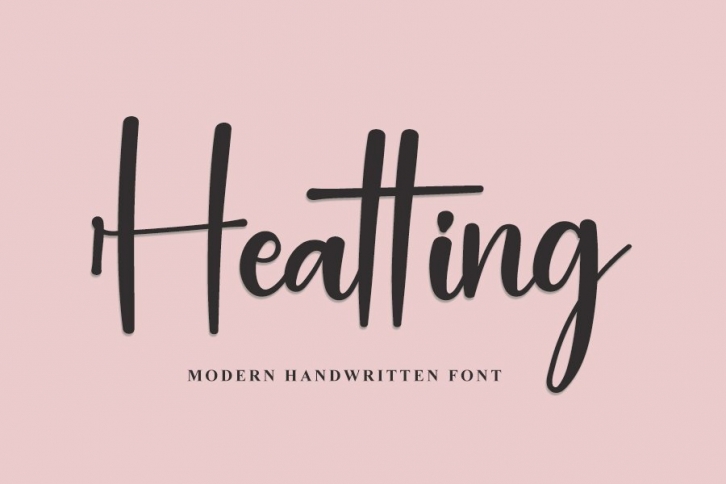
Heatting is a beautiful font that was designed by InermediaSTUDIO. It's a great choice for designers and creatives who need such a font. It was released on September 23, 2022 and the file size is 8.58 MB. Heatting may give a more youthful, expressive and casual look to your project. It is a very beautiful, refined, elegant, and high-quality font.